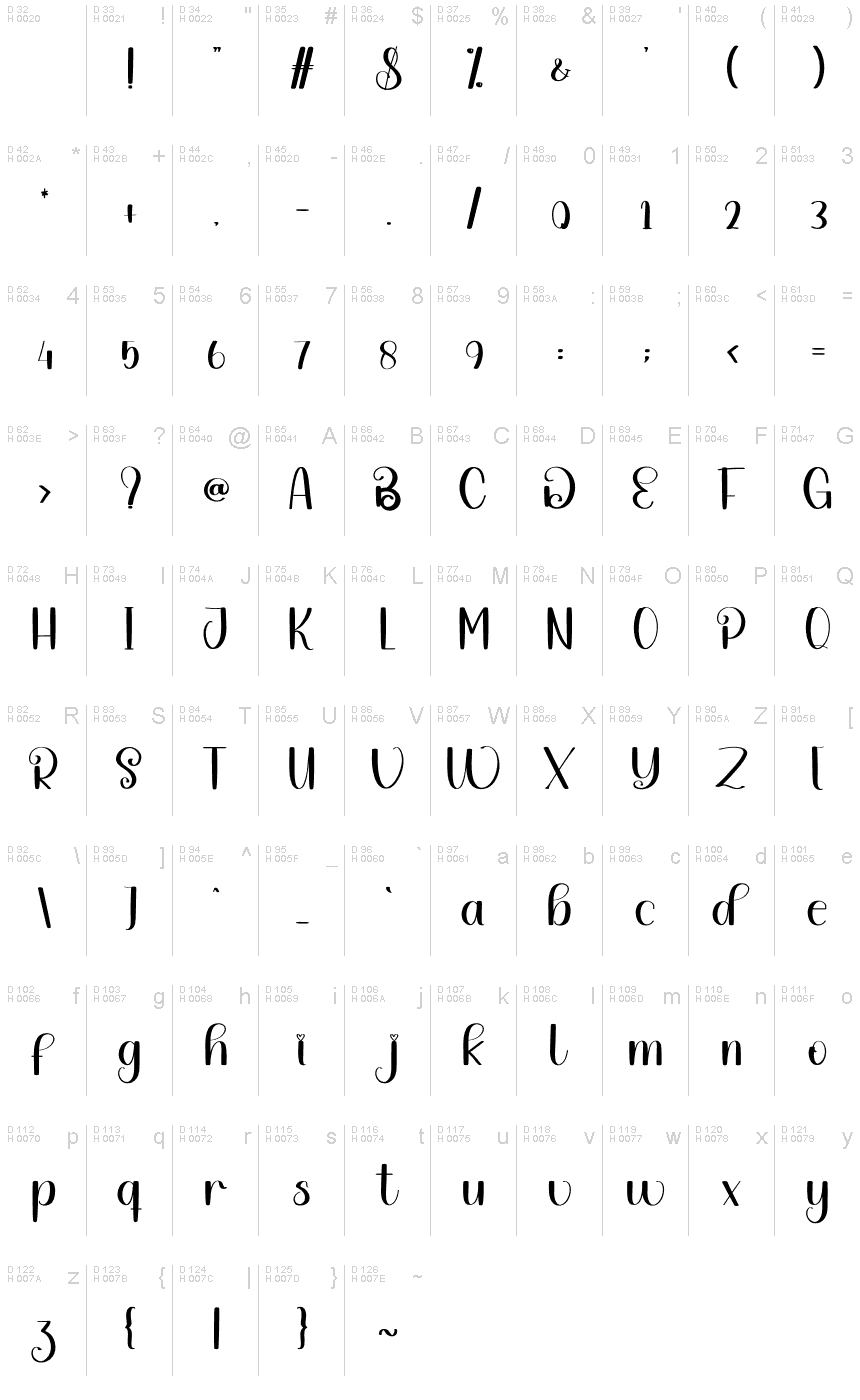
Christmas Holidays
Christmas Holidays, a charming creation by Inermedia Studio, is a calligraphy font that elegantly captures the warmth and joy of the festive season. With its semi-light weight, this typeface boasts a delicate balance between grace and readability, ensuring that each character flows into the next with an effortless dance of penmanship.
The font's aesthetic appeal lies in its harmonious blend of traditional calligraphy with contemporary nuances. Each stroke carries a personal touch as if penned by an artisan, making it perfect for heartfelt holiday greetings, bespoke gift tags, or any project that desires a touch of handcrafted sophistication.
Beyond its visual elegance, Christmas Holidays offers versatility in design applications. Whether it's enhancing the intimacy of wedding invitations or adding splendor to branding materials, this font has the potential to elevate any creative endeavor with its distinctive style and allure.